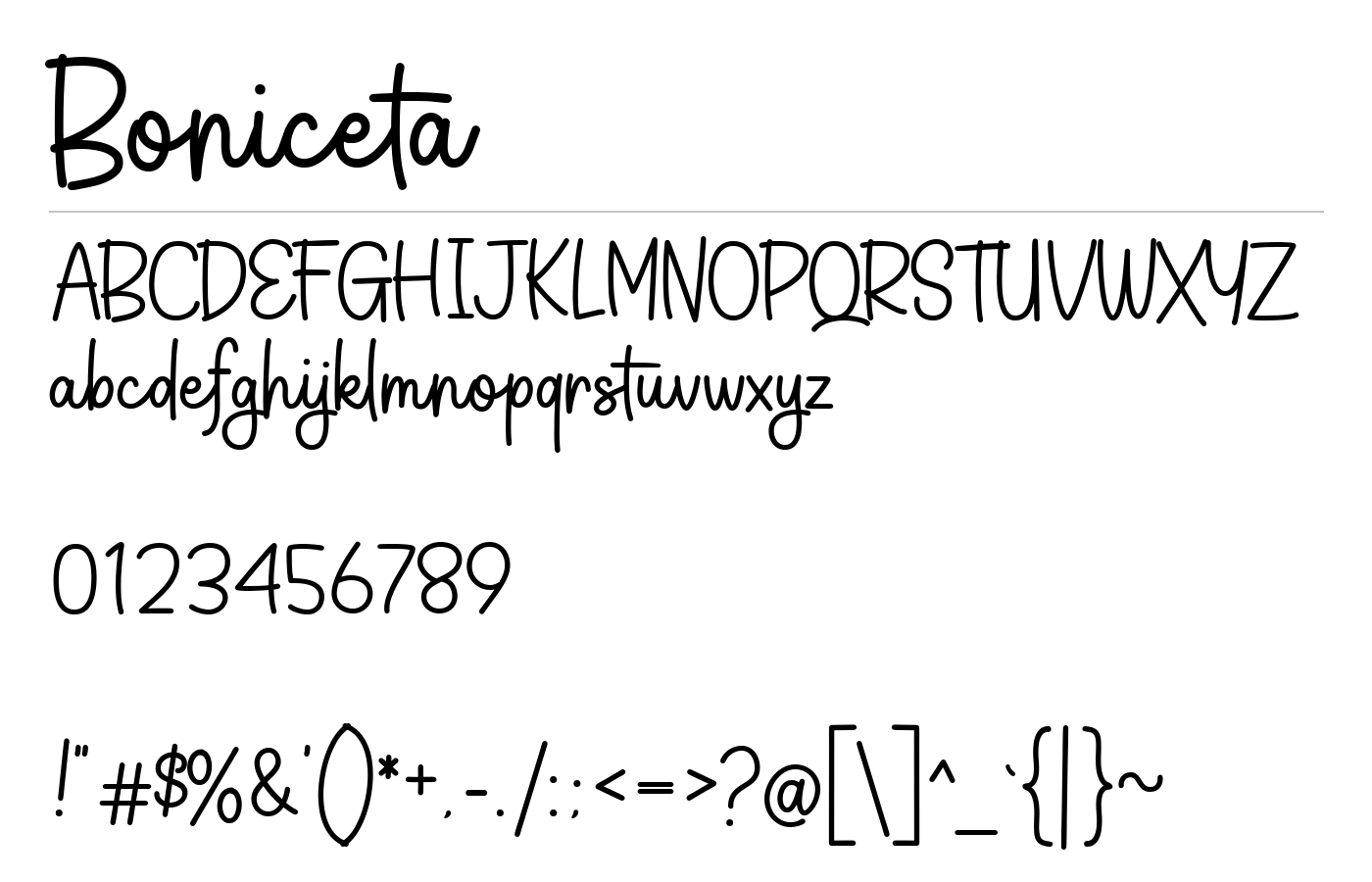
Boniceta is a playful and casual handwritten sans serif font featuring a light weight and tall, narrow letterforms with a consistent stroke width. Its friendly and informal style, combined with simple, rounded shapes and subtle quirky touches, makes it ideal for personal projects, invitations, branding, and creative design work that aims to feel approachable and fun. This font works well in headlines and short texts where a warm, human touch is desired.
Boniceta Font